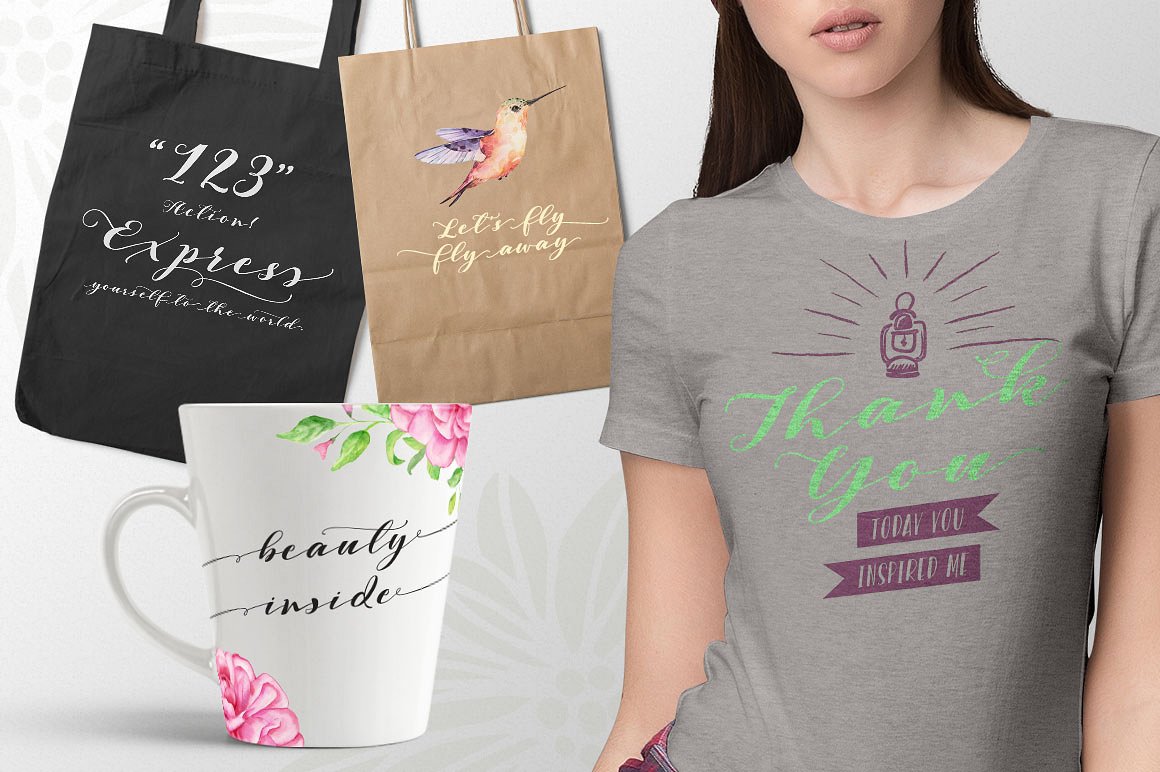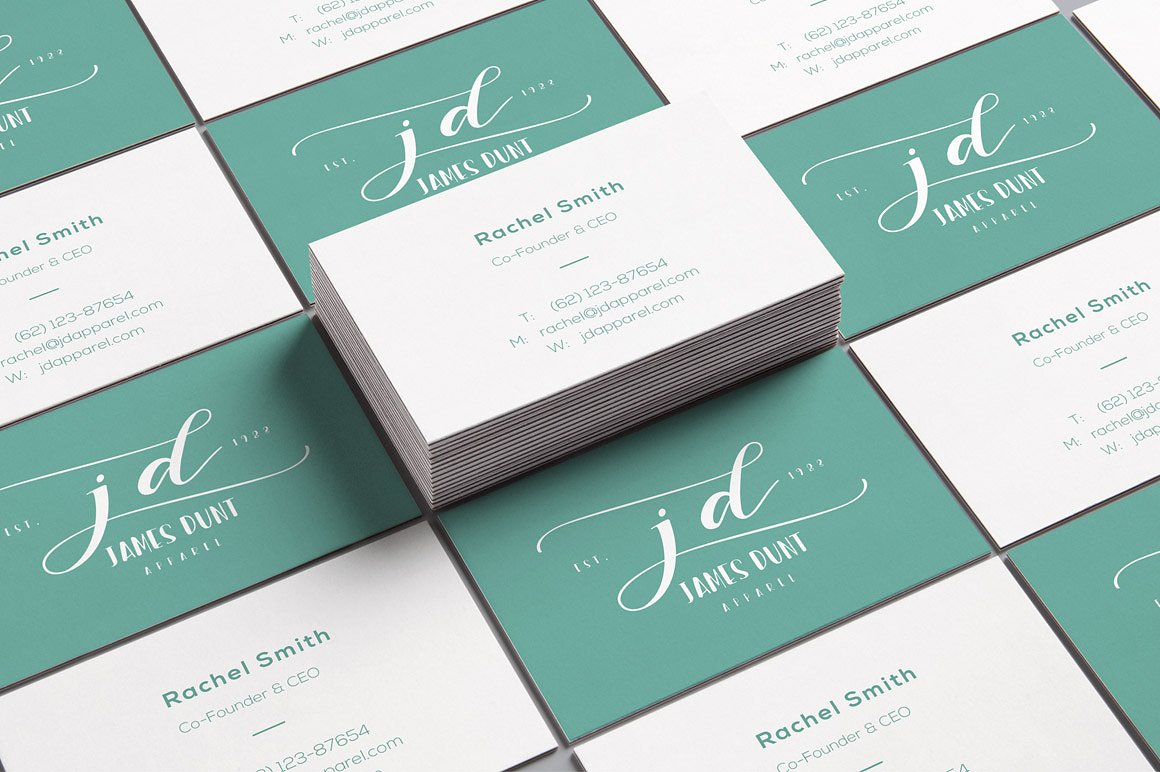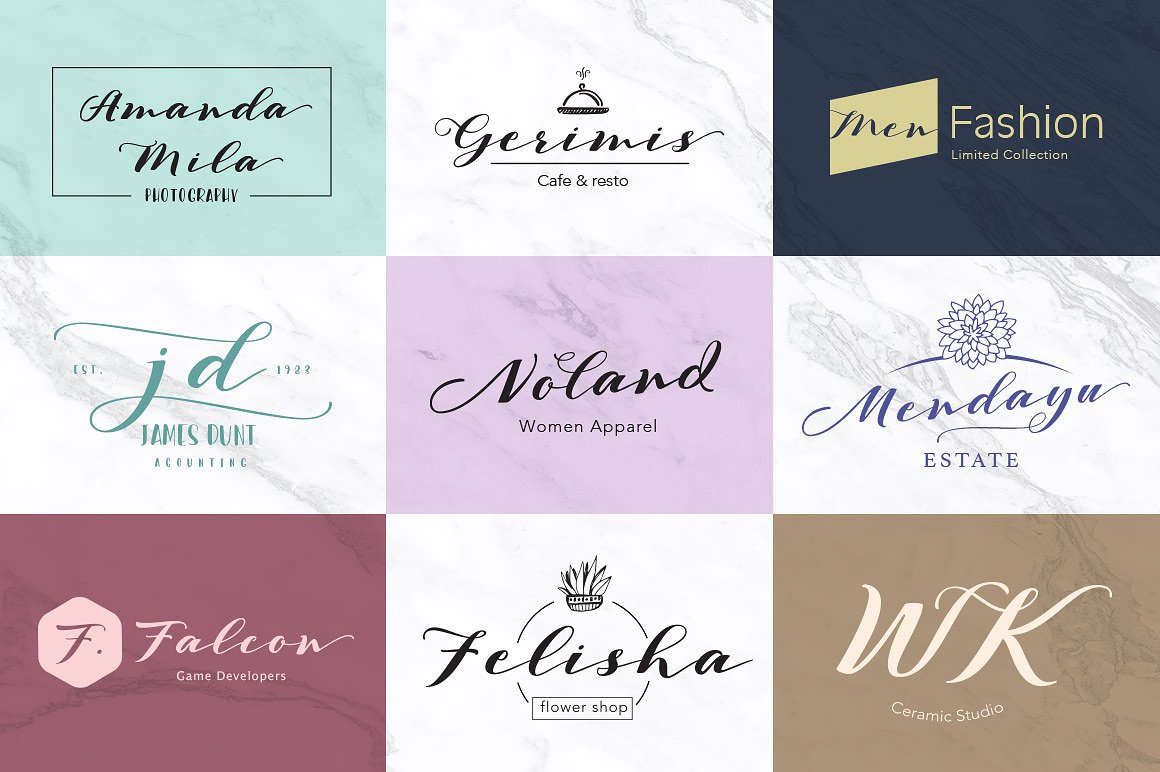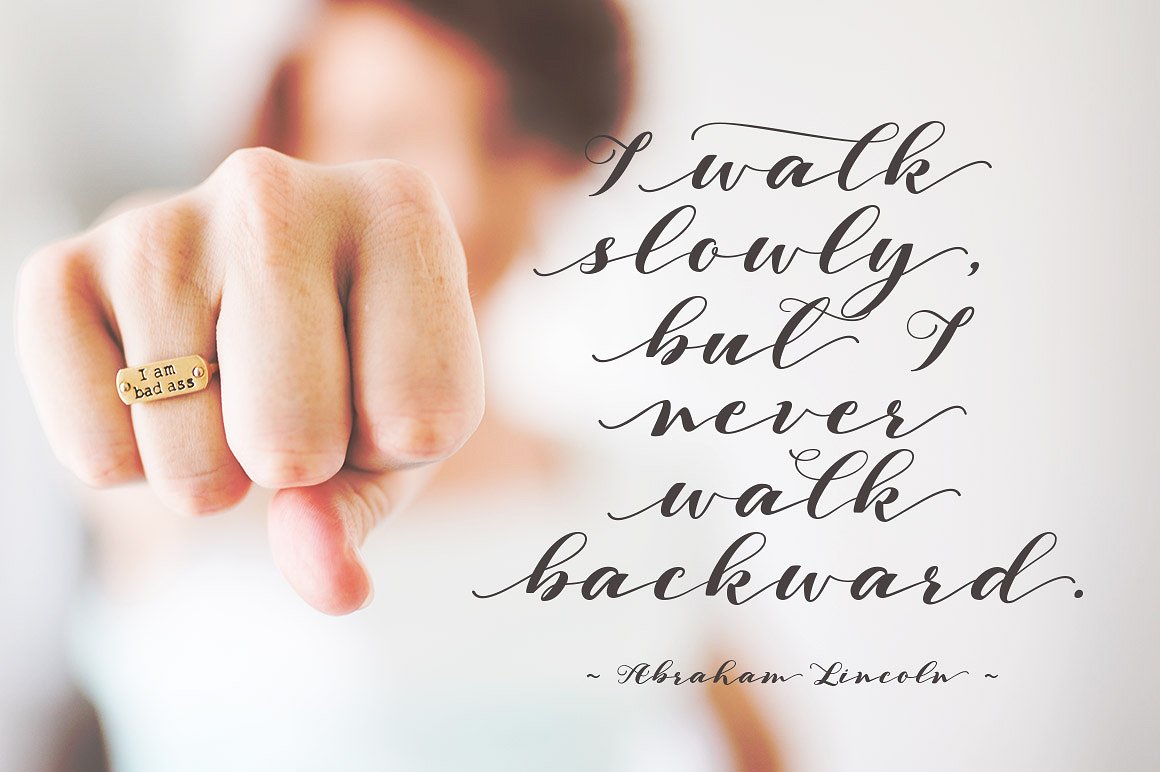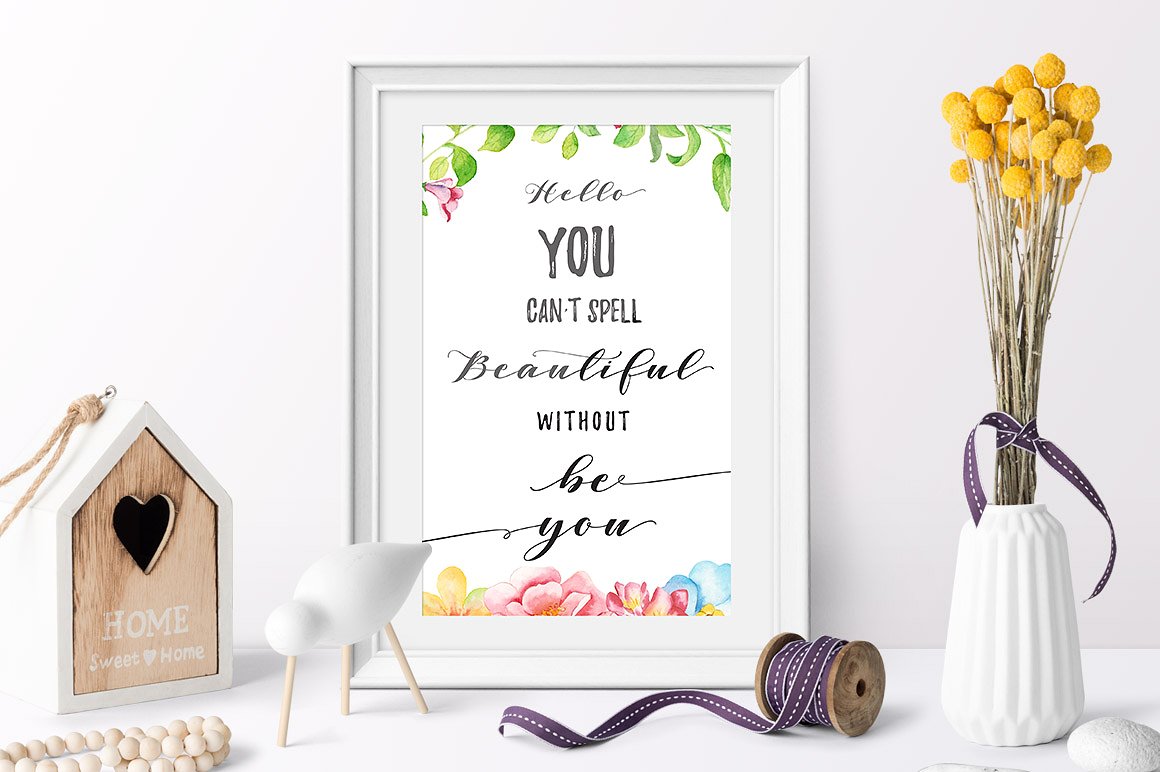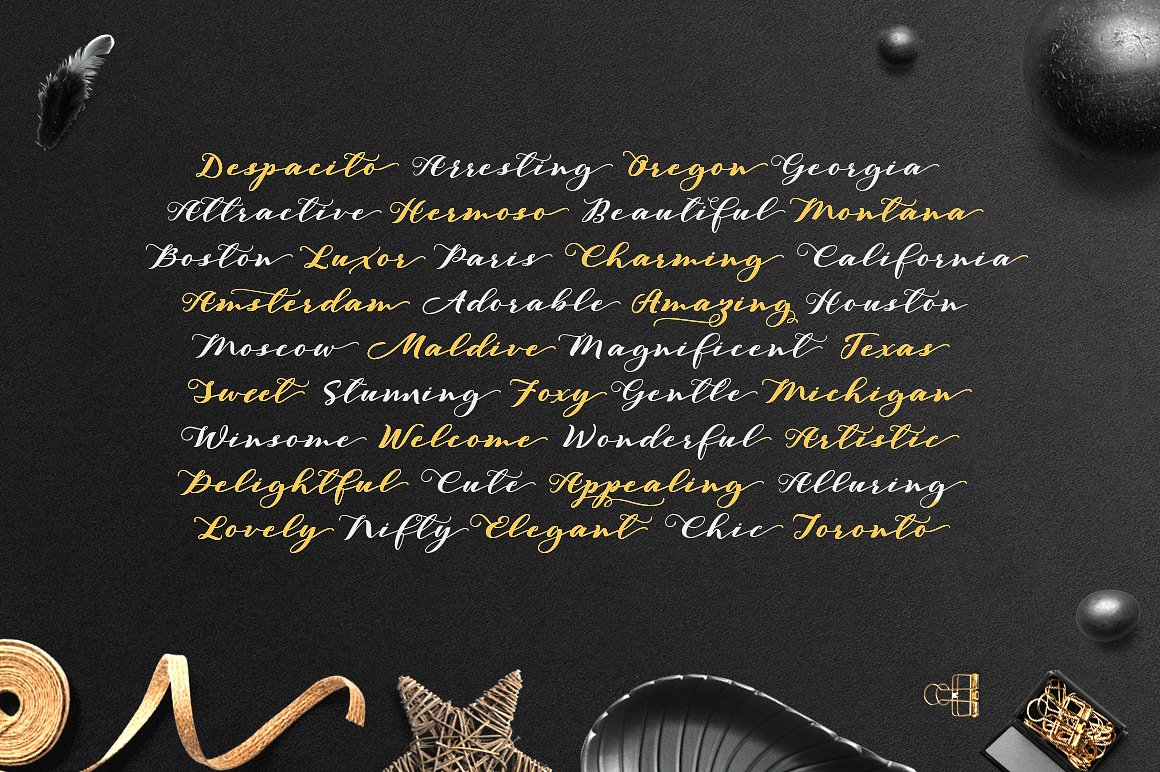
Introduction to Evita Font
As a designer, have you ever been stuck on a project, searching for the perfect font to capture the essence of your creative vision? You browse through countless options, but none seem to fit the bill. That was until you stumbled upon the Evita Font – a delightful, playful script that brings a touch of whimsy to any project.
The Evita Font is more than just a pretty face; it’s a valuable resource for designers looking to elevate their creative projects. With its transparent background and free download option, it’s an accessible design tool that won’t break the bank. Whether you’re working on a high-end campaign or a personal project, the Evita Font is sure to add a professional touch and help you stand out from the crowd.
- High-quality font design with a transparent background, ideal for creative projects requiring a clean and modern look.
- Features a large character set, including international characters and symbols, making it suitable for multilingual designs.
- Evita Font is a versatile and stylish font, perfect for use in logos, branding, advertising, and other creative projects where a unique and eye-catching design is required.
- Available in a range of sizes and styles, including bold, italic, and regular weights, to provide flexibility and customization options for designers.
Honest Review: Evita Font
I recently had the chance to work with the Evita Font for a creative project, and I must say, I was impressed. As a designer, I always look for high-quality design resources that can elevate my work and make it stand out. The Evita Font definitely delivered.
Here’s what I liked about it:
- ✨ The font is highly customizable, allowing me to adjust the size, color, and style to fit my design needs.
- ✨ The font is highly legible, making it perfect for use on a transparent background or in a creative project where readability is key.
- ⚠️ The font is not as versatile as some other fonts I’ve used, and it may not be suitable for all types of designs.
- ⚠️ The font is a bit on the heavier side, which may not be ideal for designs that require a lighter, more minimalist look.
Overall, I would highly recommend the Evita Font for designers looking for a high-quality, free design resource. While it may have some limitations, it’s a great option for creative projects that require a bold, eye-catching font.
Experiment with different font sizes and colors to create a unique look. Use the Evita Font in combination with other design elements to add depth and interest to your design. Consider using it as a title font to make your design stand out.
The Evita Font is perfect for creating invitations, posters, and other promotional materials. It’s also great for use in branding and logo design. With its high-quality design and transparent background option, you can use it to create stunning designs for your creative project.